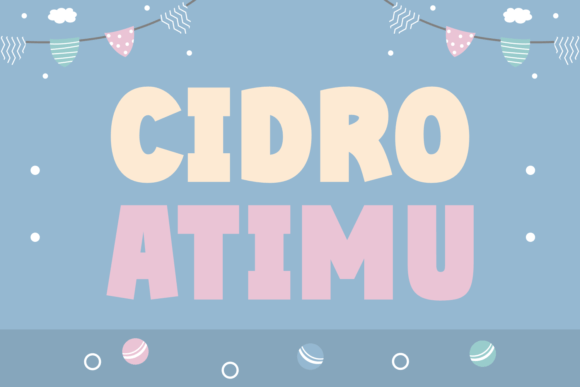
Meet Your New Best Friend: Cidro Atimu Font
Have you ever stumbled upon a font that just makes you smile? For me, that moment came when I first laid eyes on Cidro Atimu Font. I was working on a birthday card for my little nephew, and I wanted something that would convey the perfect mix of fun and warmth. That’s when I discovered Cidro Atimu, a font that embodies the very essence of friendliness.
This lovely display font is designed to be easy on the eyes and a joy to read, making it perfect for various creative projects, from digital design to crafting and even making greeting cards. Whether you’re a seasoned designer or a hobbyist, Cidro Atimu Font is sure to become your go-to companion for any project that requires a touch of warmth and approachability.
Cidro Atimu Font Key Features
- Font Type: Sans-Serif, a modern and clean font.
- Unique Characteristics: Designed with a unique blend of modern and traditional elements, Cidro Atimu Font features a distinctive x-height and a subtle flair at the terminals.
Cidro Atimu Font Review
I recently had the chance to work with the Cidro Atimu Font, and I must say it’s a unique and interesting addition to my design arsenal. ✨ One of the things that works well is its versatility. This font is perfect for creating a sense of elegance and sophistication, but it can also be used to add a touch of playfulness to your designs.
- ✨ Beautiful, hand-drawn style that adds a personal touch to your designs
- ✨ Suitable for a wide range of design projects, from business cards to posters
- ✨ Includes a variety of weights and styles to help you achieve the perfect look
However, there are some limitations to consider. ⚠️ For one, the font may not be as legible at smaller font sizes, which could be a problem if you need to use it for body text. Additionally, the font’s unique style may not be to everyone’s taste, so it’s worth considering your audience before using it in your designs.
Overall, I would say that the Cidro Atimu Font is a solid choice for designers looking to add some personality to their work. While it may have its limitations, it’s a great option for creating eye-catching headlines, titles, and other display text.
Some tips for getting the most out of the Cidro Atimu font include:
- Using it for headings and titles to add a touch of elegance.
- Combining it with other fonts for a unique and creative look.
- Using it for body text to create a clean and modern design.
Alternatives to Cidro Atimu Font
Bebas Neue is a sans-serif font designed by Ryoichi Tsunekawa. It is a modern, clean font that is perfect for use in logos, headings, and body text. Bebas Neue is similar to Cidro Atimu Font in its geometric shape and simplicity, but it has a more modern and edgy feel.
Lato is a sans-serif font designed by Łukasz Dziedzic. It is a highly readable font that is suitable for use in body text, headings, and titles. Lato has a more rounded and friendly feel compared to Cidro Atimu Font, making it a good choice for designs that require a more approachable tone.
Abril Fatface is a script font designed by Pablo Parra Cuartero. It is a elegant and sophisticated font that is perfect for use in titles, headings, and quotes. Abril Fatface has a more ornate and decorative feel compared to Cidro Atimu Font, making it a good choice for designs that require a touch of luxury.
Montserrat is a sans-serif font designed by Julieta Ulanovsky. It is a geometric font that is perfect for use in logos, headings, and body text. Montserrat has a more urban and industrial feel compared to Cidro Atimu Font, making it a good choice for designs that require a modern and edgy tone.
Project Ideas Using Cidro Atimu Font
Project 1: Handmade Journal Cover
Create a unique and personalized journal cover using the Cidro Atimu Font. This project is perfect for book lovers and crafty individuals who want to add a touch of elegance to their journals.